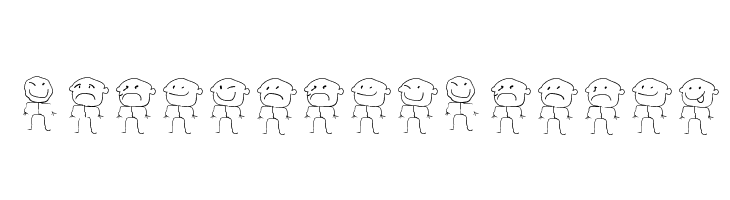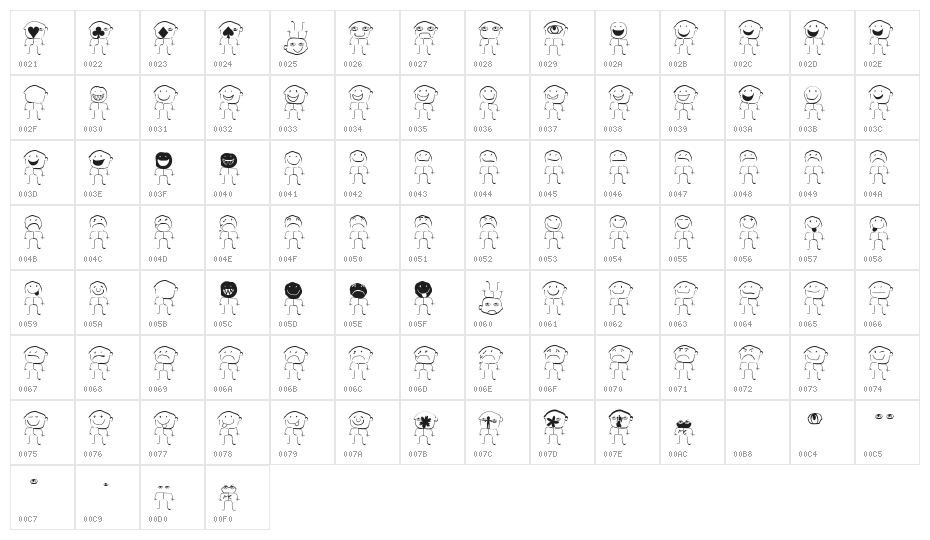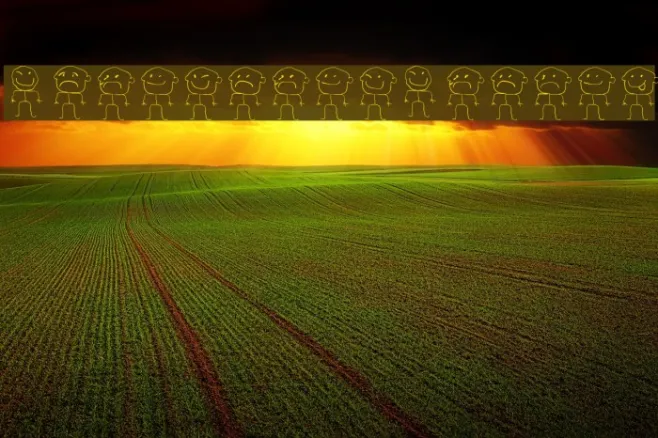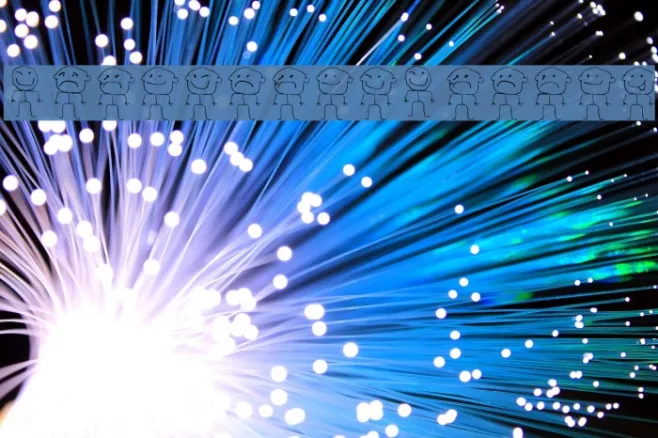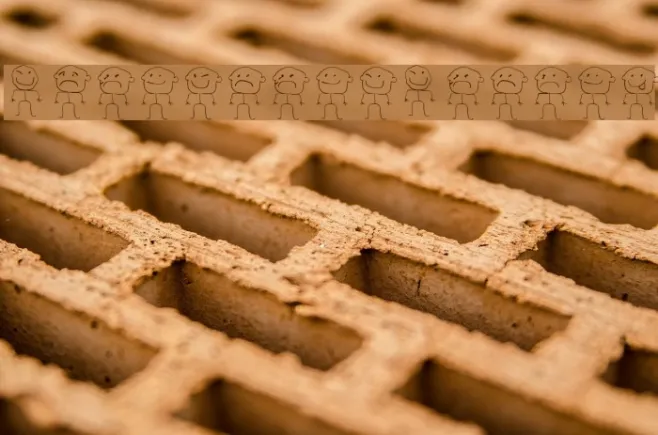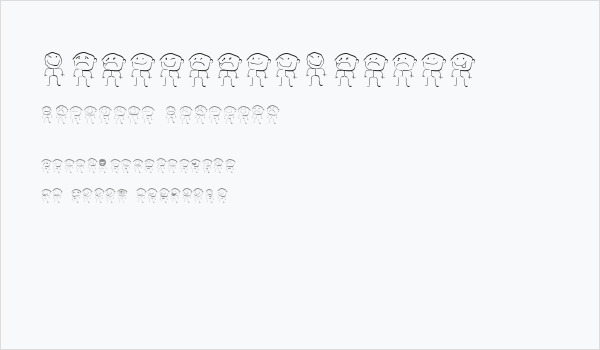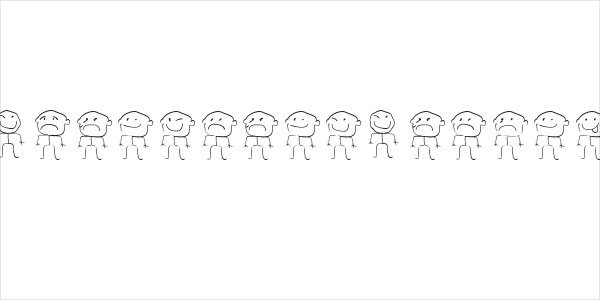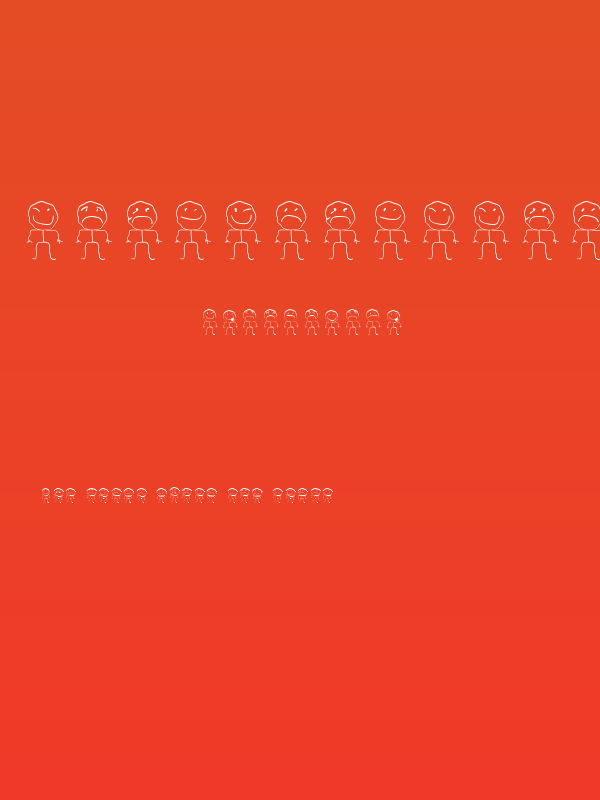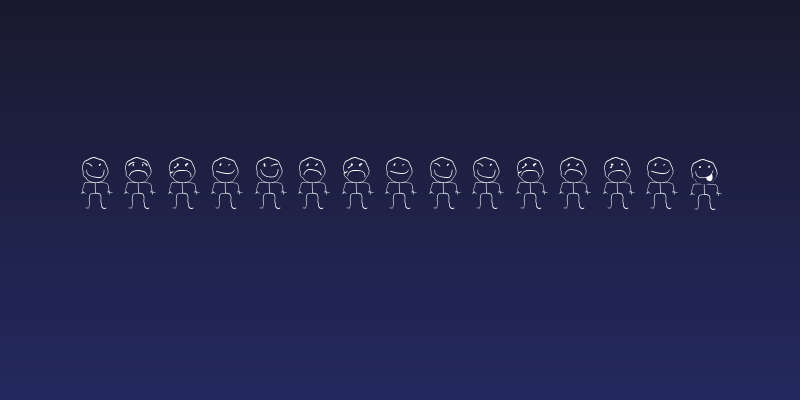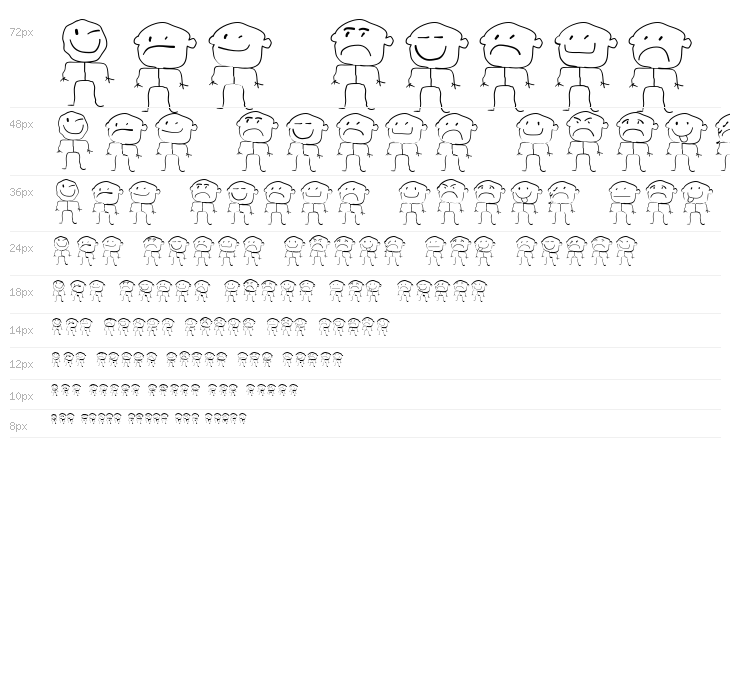
SometimesSmiley Font
SometimesSmiley Description
A playful, hand-drawn font featuring stick-figure characters with expressive faces and simple linework, each glyph uniquely illustrated to convey various emotions and whimsical designs.
| Overall Style | Playful, Whimsical, Hand-drawn |
| Use Case | Logos, Headlines, Posters, Children's materials |
| Proposed Projects | Children's books, greeting cards, playful branding, educational materials, comics, informal posters. |